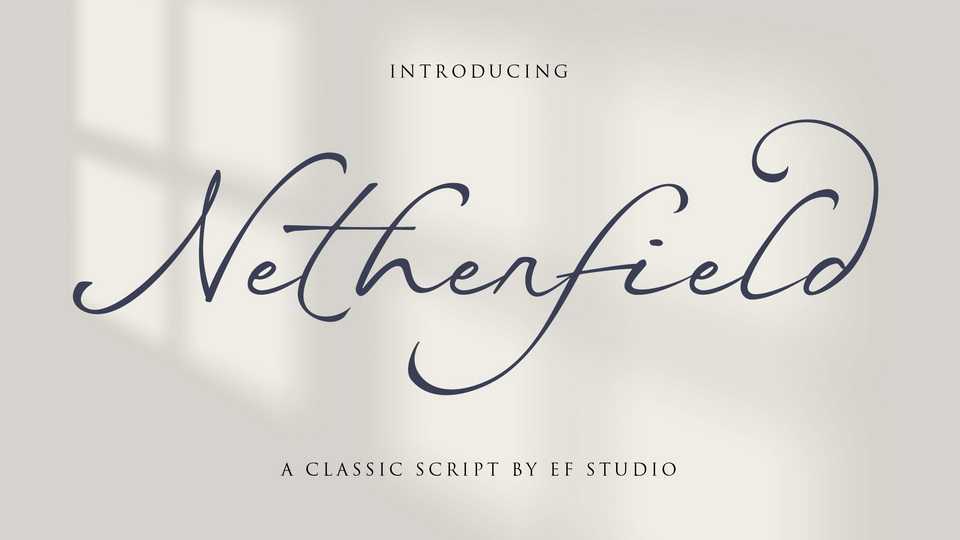
Download Netherfield font, a classic script typeface that inspired by eighteen century manuscript. Netherfield has unique stem and form that show antique feels. Suitable for branding project, packaging, quotes, greeting card, and so on.
Designer: Ef Studio